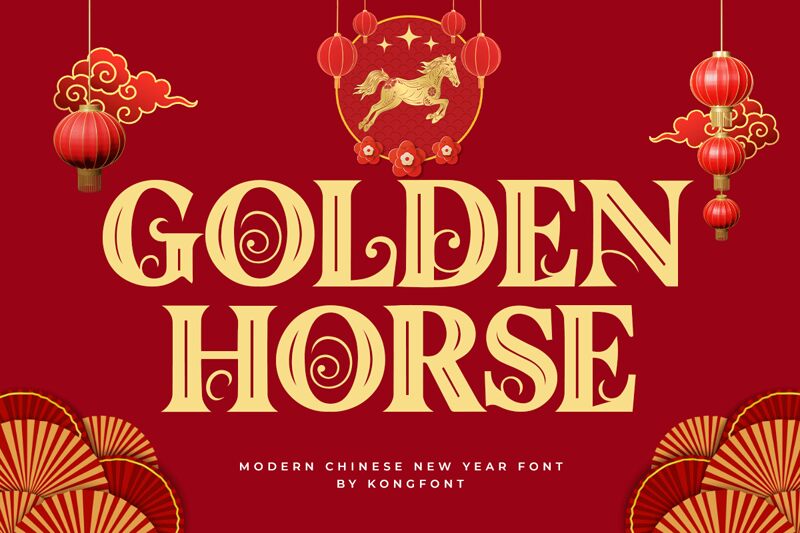
Golden Horse font by Kong Font is a free font that comes in a stylish retro design inspired by the Golden Age and the American Wild West. The typeface was designed to blend perfectly with cowboy movies and Western artworks, but since we no longer come across many, we can use other projects for inspiration and ideas.
Let the font family take you on a research trip to the West where true cowboys can still be found, and maybe, just maybe, you can come up with your content! That content can be a mentioned artwork of movie design, or a book cover about cowboys and the Wild West. This free font family can also be used for restaurant menus where classic meat dishes can be highlighted or for YouTube channels about travelers on a journey.
The versatility of the vintage fonts even enables you to create packaging designs or posters that can be decoration items for themed restaurants as well. All font styles are only free for personal uses, so designers have to buy a license for commercial usage.